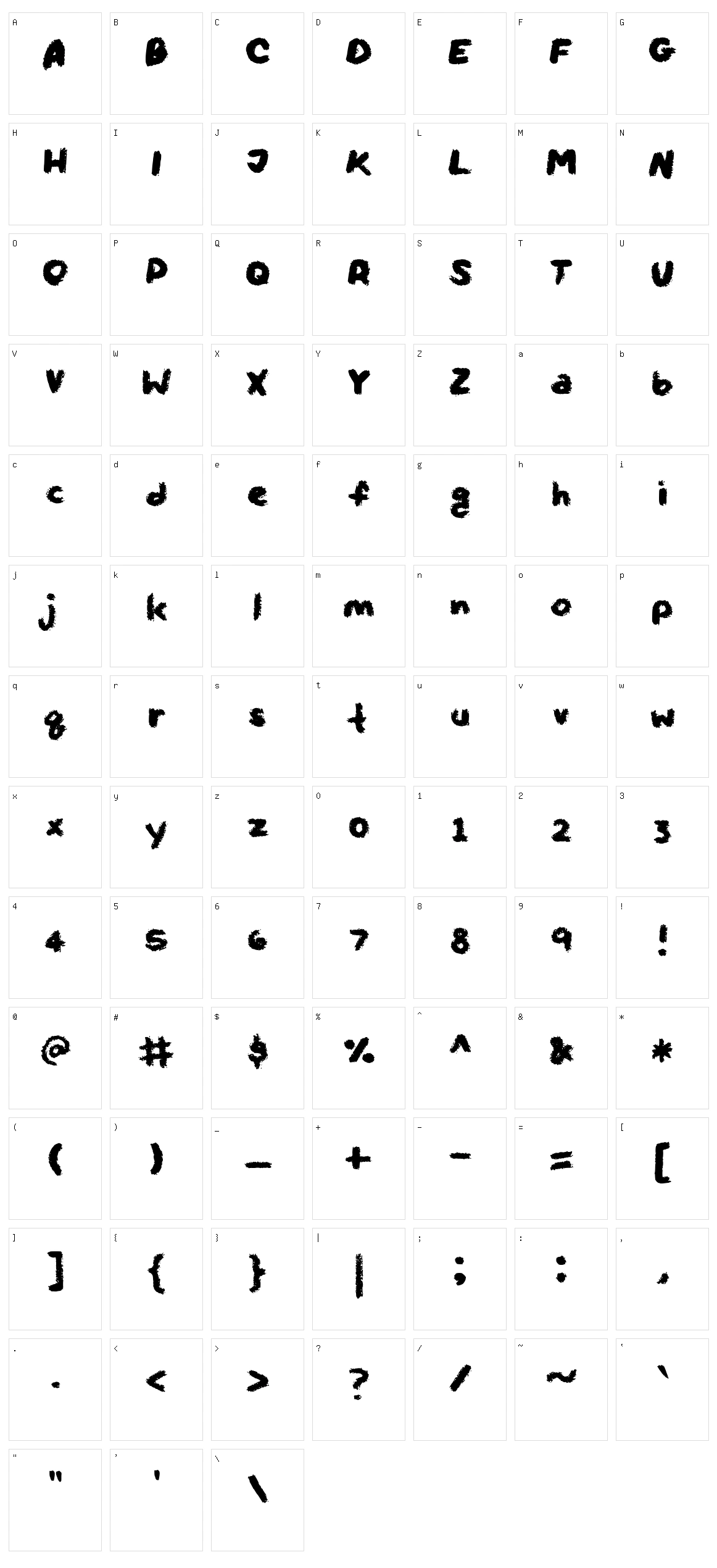
--crayon and the wolf--
a dual purpose handwritten typeface inspired by Prokofiev's Peter and the Wolf.
+ the lowercase is ideal for novelty applications
+ the uppercase is ideal for dramatic applications
+ included in this typeface are four scribble glyphs
+ change kerning to create long scribbles!